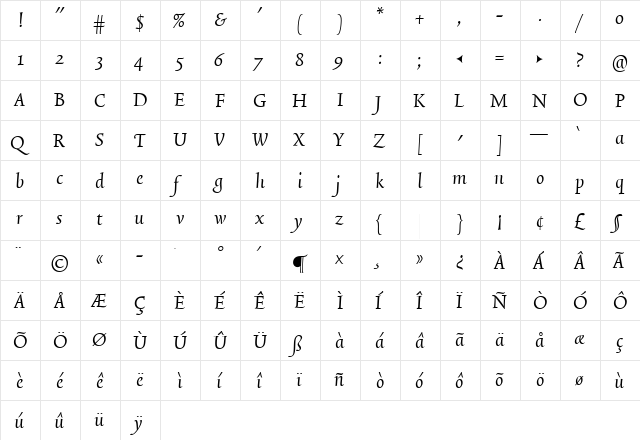
TriniteNo2 Italic Font Preview
TriniteNo2 Italic
TriniteNo2 Italic Font Details
Design Context for TriniteNo2 Typeface
TriniteNo2 takes a measured approach to typography — its balanced proportions and neutral character make it a reliable workhorse for both digital and print work. The dynamic lean of this cut emphasises speed and emphasis in any layout.
Pro Tip: Try TriniteNo2 for annotation and caption copy alongside an upright companion — the contrast in angle creates a dynamic but ordered typographic system.